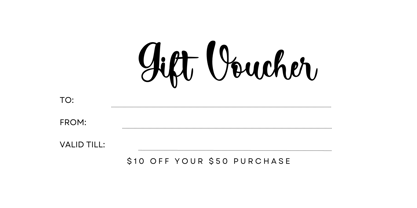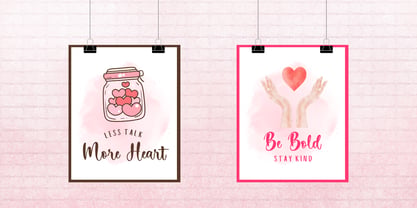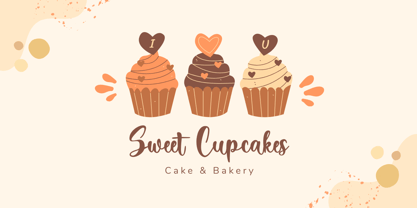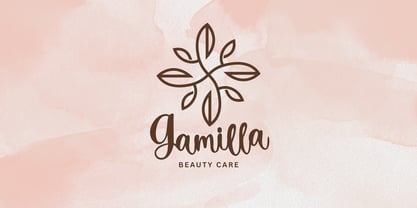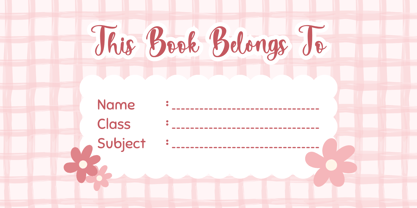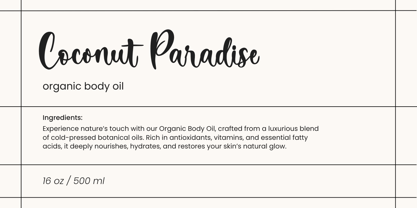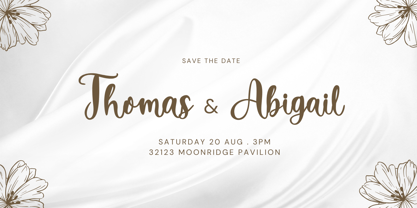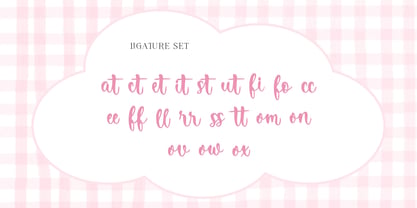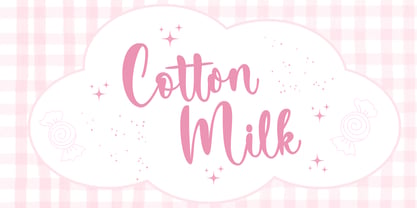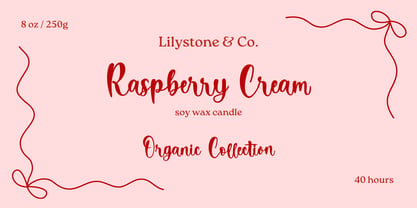
Cotton Milk
The Cotton Milk Font Family was designed by Muhamad Yusron Billah and published by Sronstudio. Cotton Milk contains 1 styles. More about this family
Cotton Milk is a smooth and charming script font that radiates warmth and elegance. With its soft curves and flowing strokes, this font is perfect for branding, packaging, wedding invitations, and heartfelt quotes. Cotton Milk brings a handcrafted feel that adds a gentle, personal touch to any creative project.
- Uppercase & lowercase characters
- Numerals & punctuation
- Multilingual support